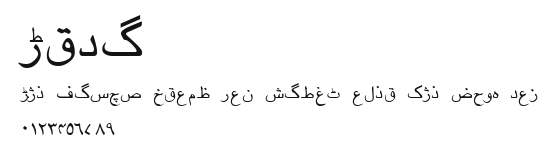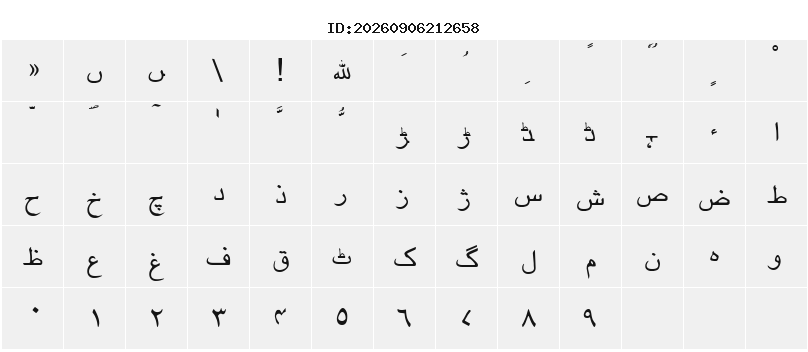
• Font Name: Urdu
• Full Font Name: Urdu
About Urdu.ttf
Urdu.ttf is a modern, elegant sans-serif font designed for ultimate readability and visual harmony. Perfect for branding, headlines, web design, and print materials.